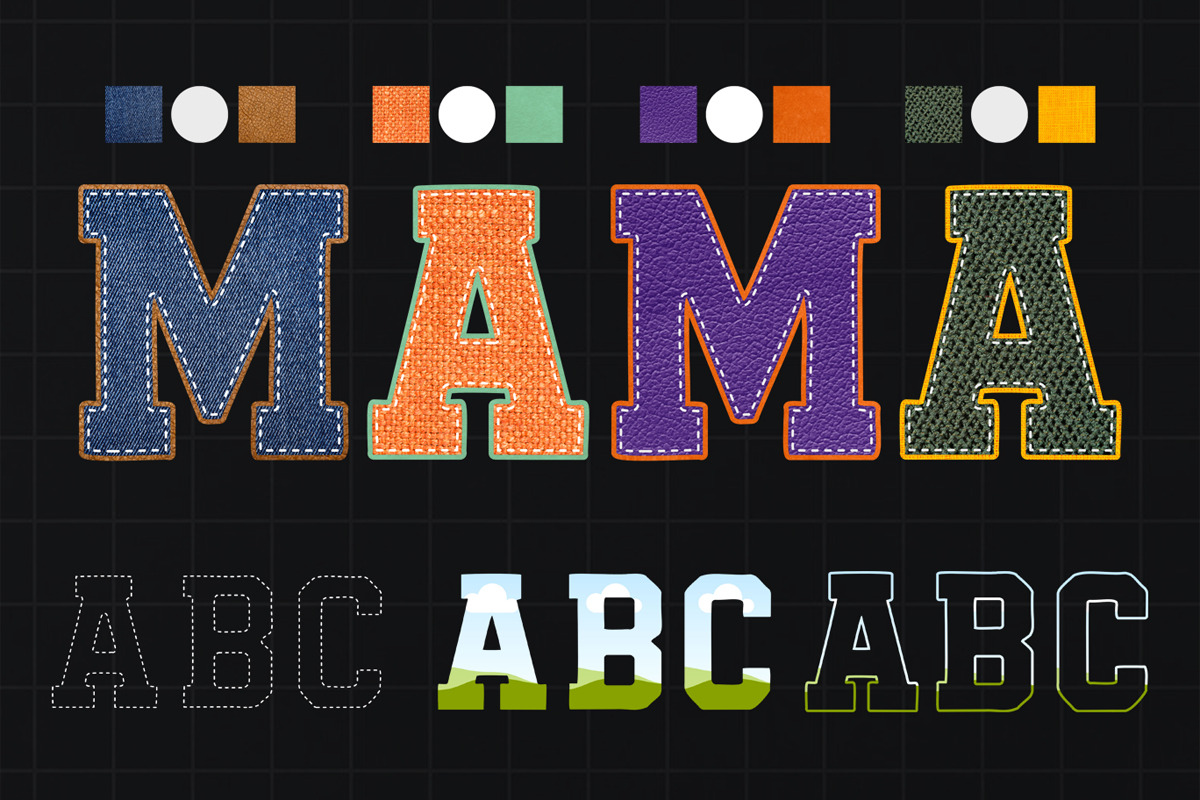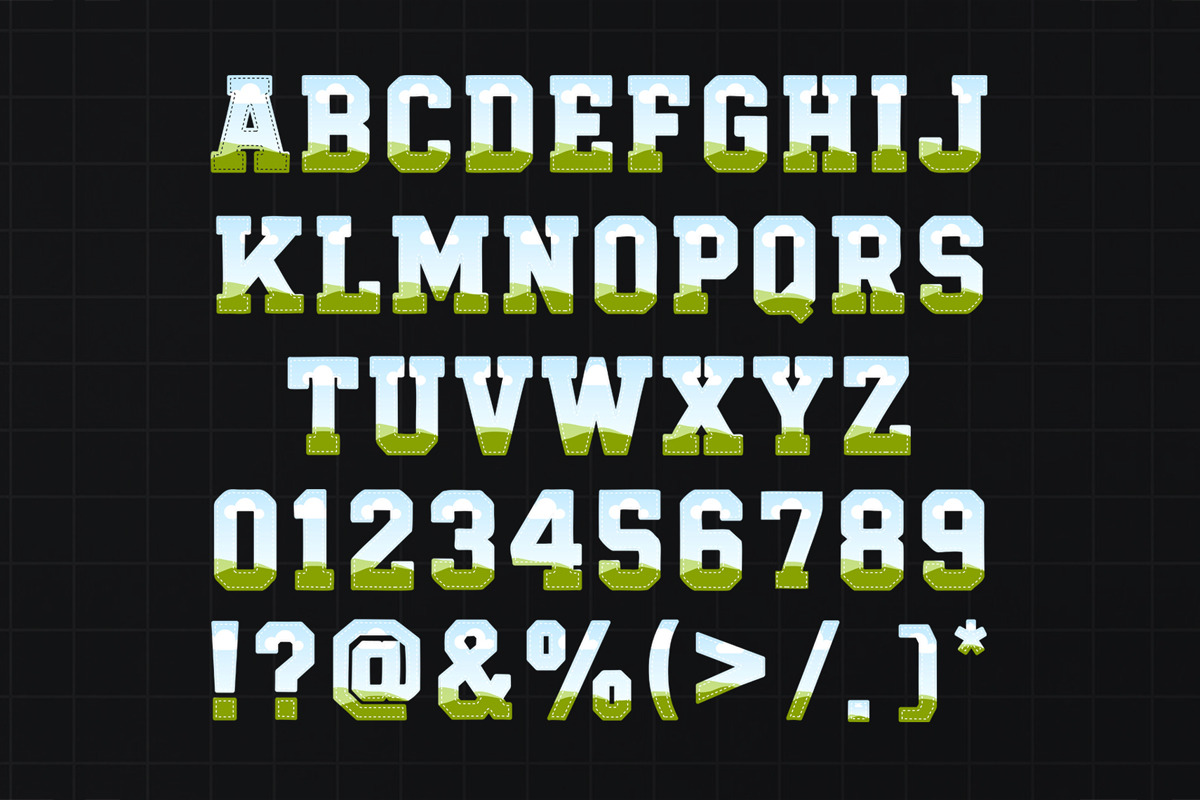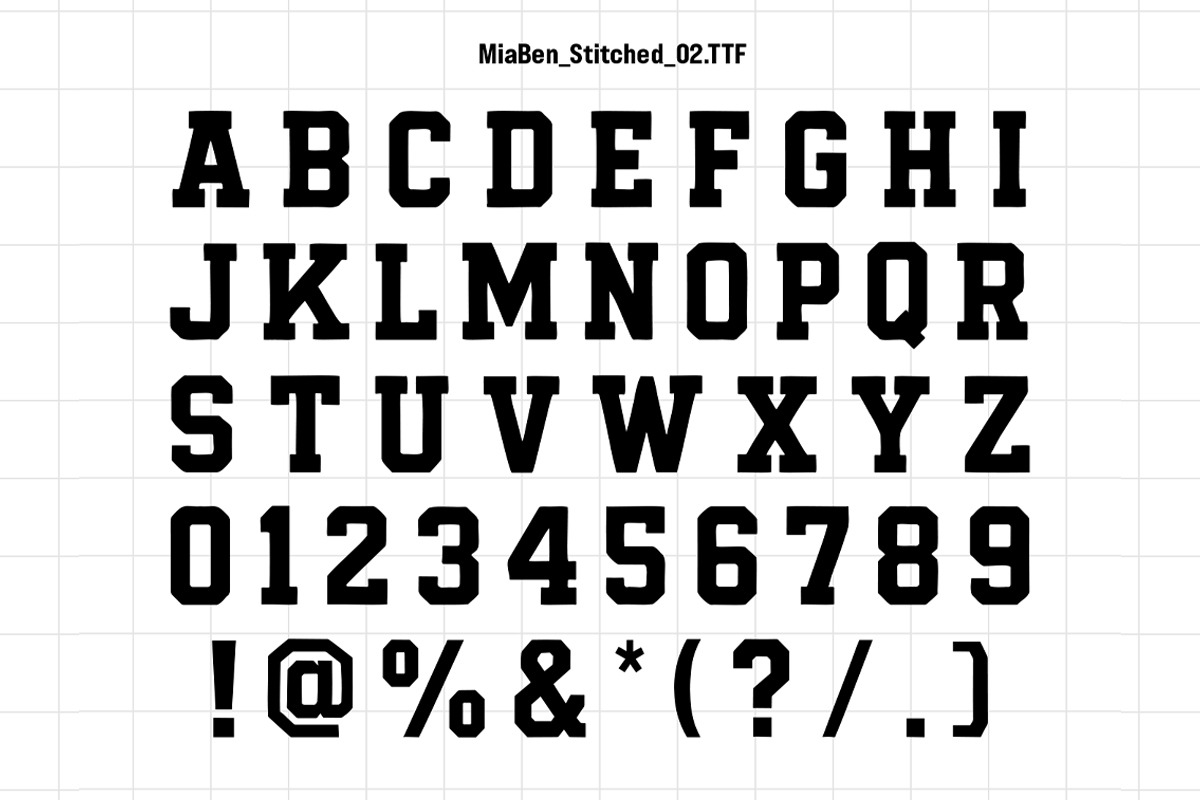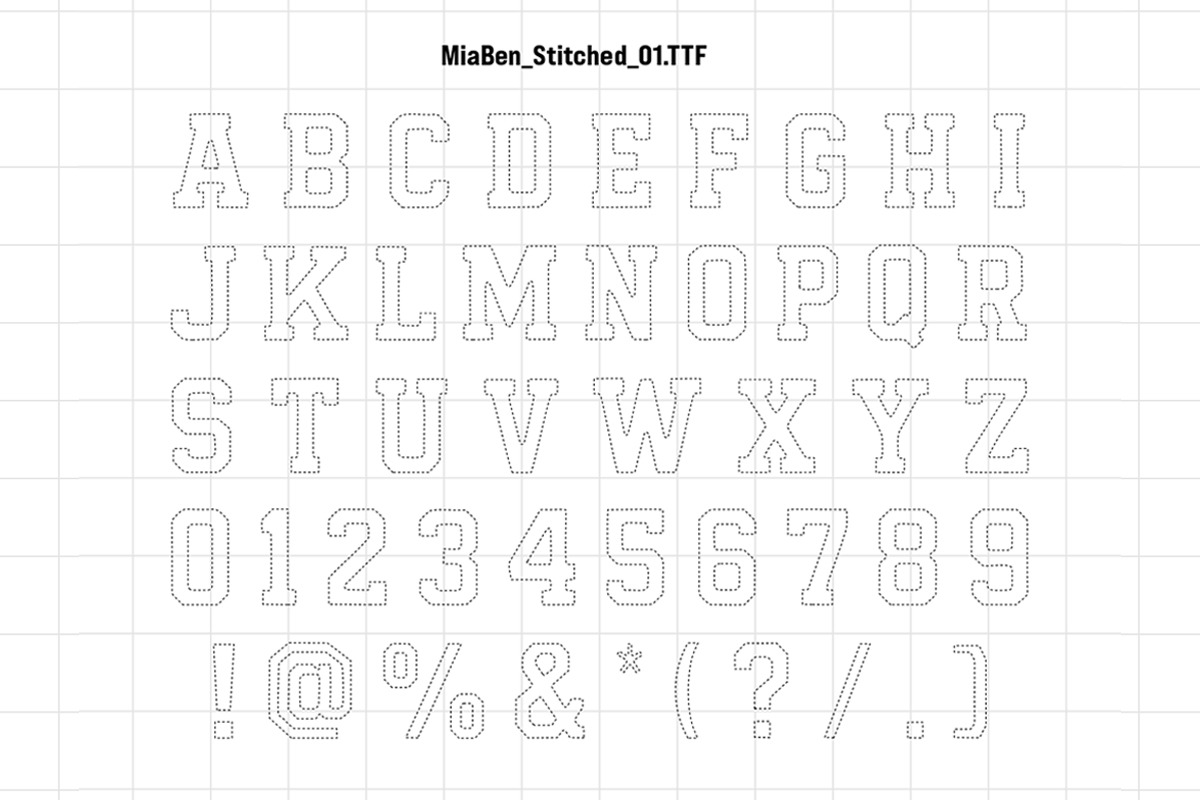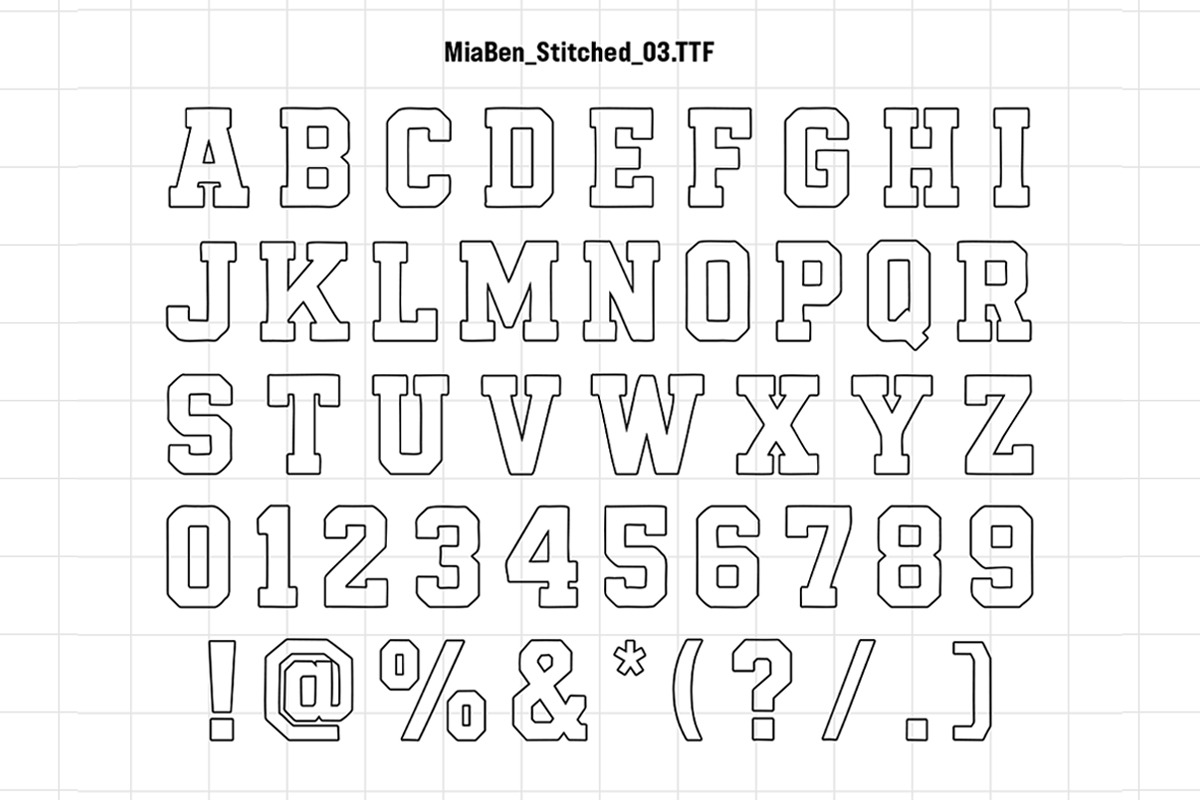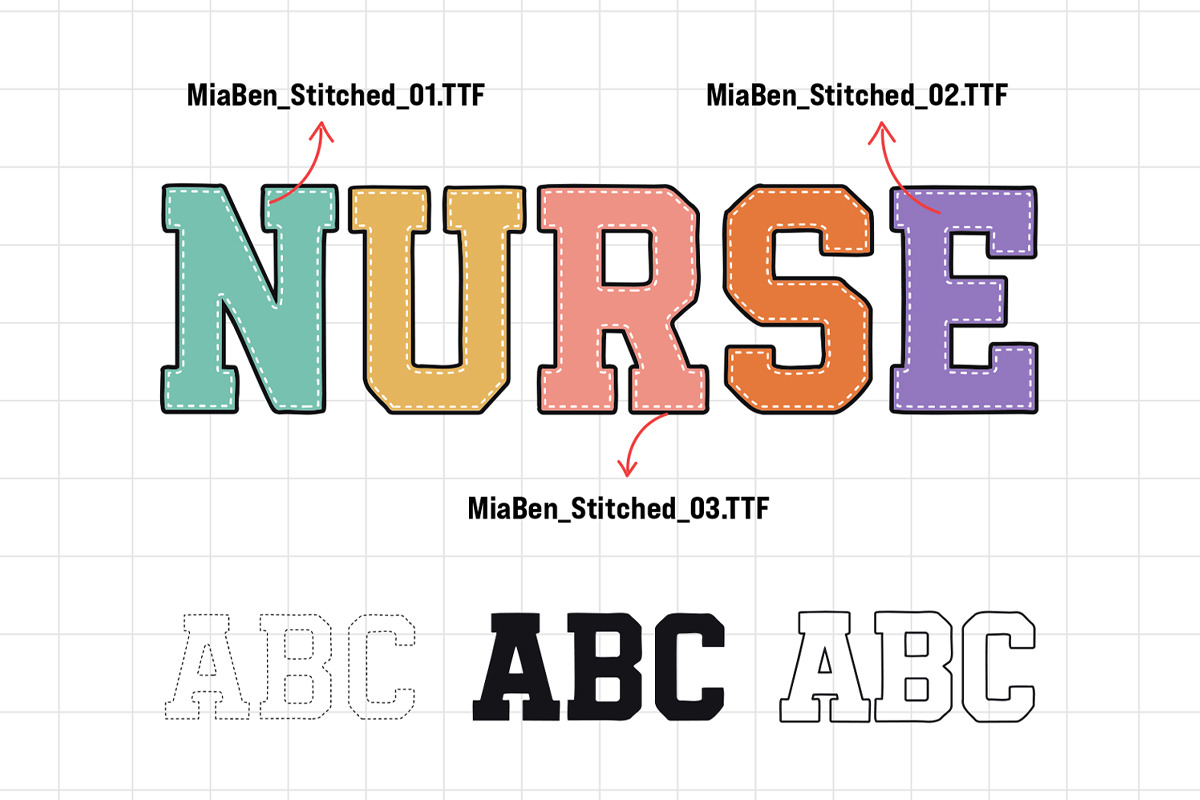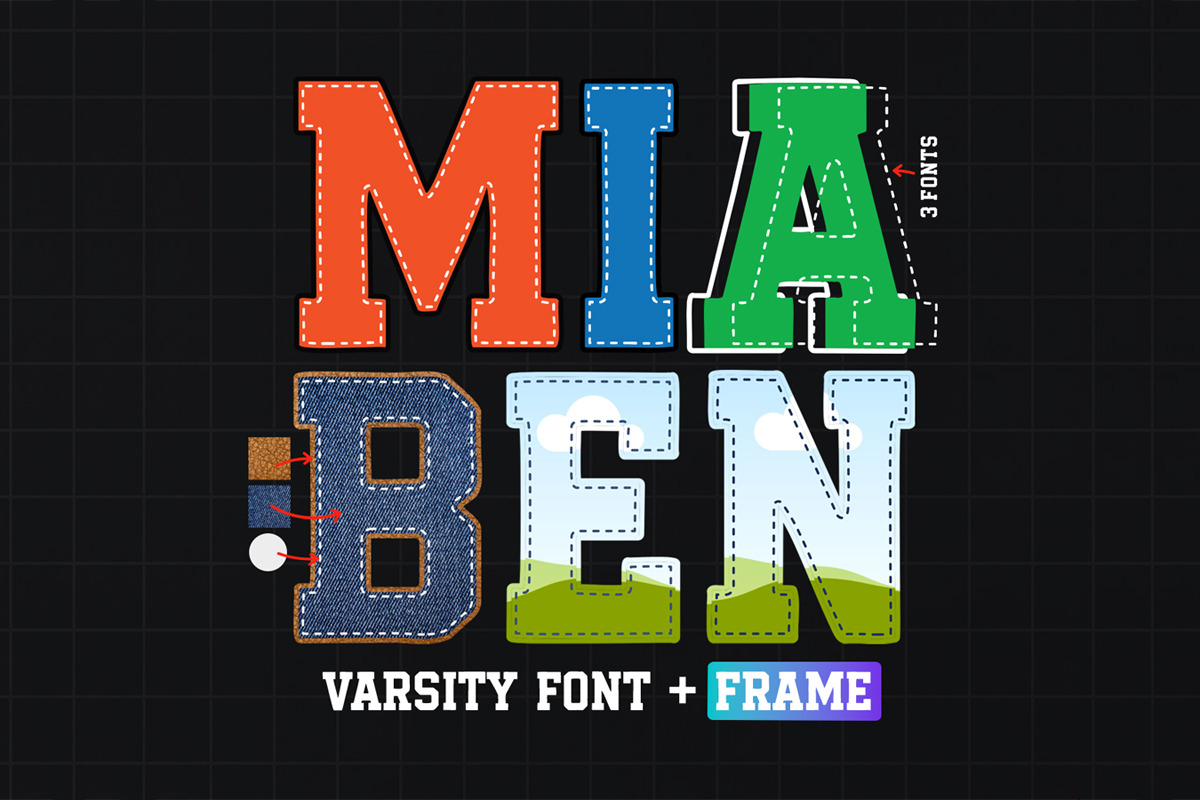
Mia Ben - Varsity Font Canva Frames
Mia Ben is a varsity, college, stitched, sports, jersey and Canva frames template font. It has beautiful and well-balanced characters and as a result, it matches a wide pool of designs. It is the best choice for creating eye-catching logos, branding, and quotes. Add it to your most creative ideas, and notice how it makes them come alive!